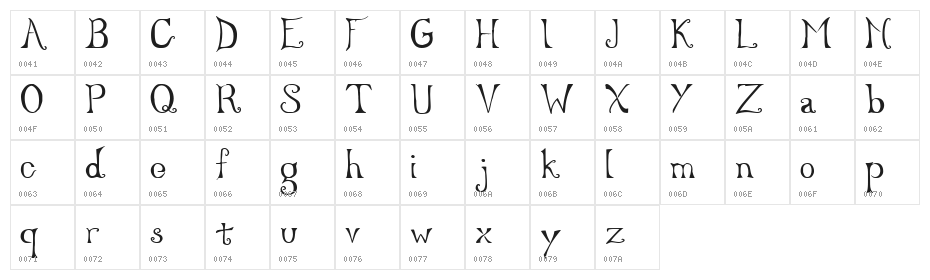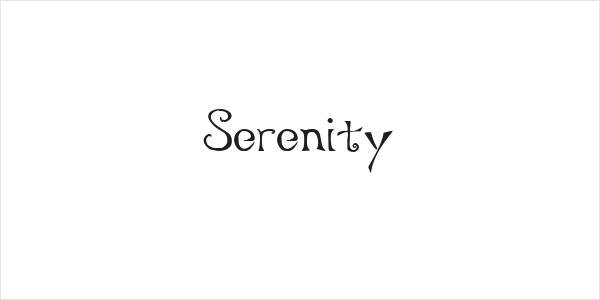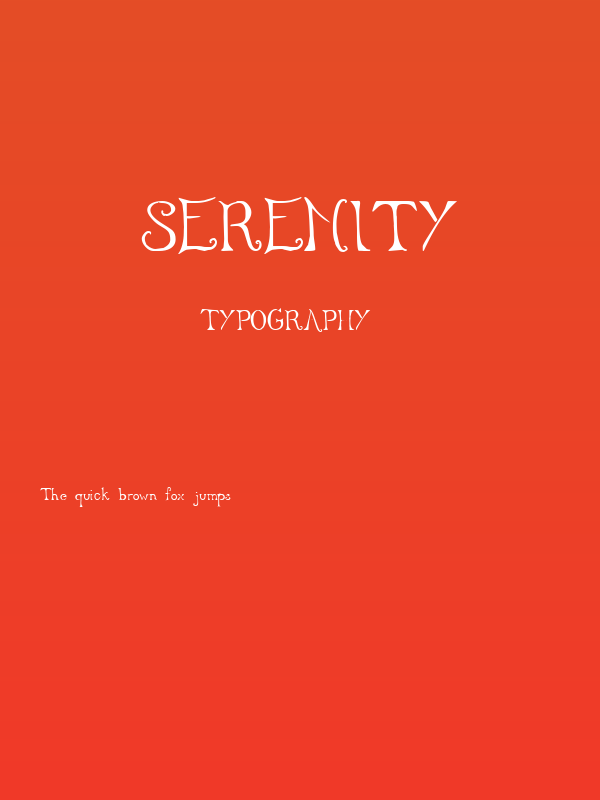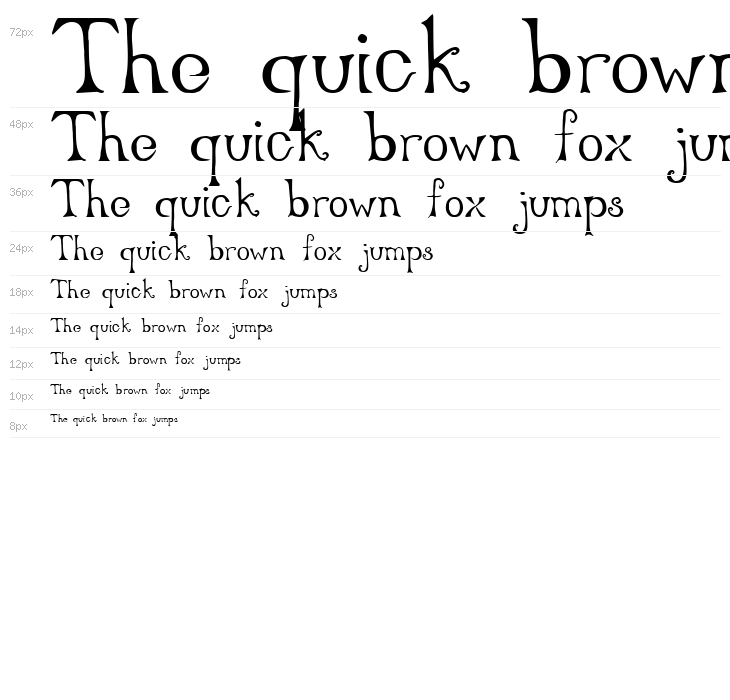
Serenity Font
This font features a whimsical and playful design with a decorative flair. The uppercase letters have a unique, artistic quality with varying stroke widths and subtle curls, giving them a hand-drawn appearance. The lowercase letters maintain this playful style, with some characters featuring exaggerated loops and swirls. The overall look is both elegant and quirky, making it stand out in any design. The numbers and special characters follow the same decorative theme, ensuring consistency throughout the font. This font is perfect for projects that require a touch of creativity and individuality.
Use CaseHeadlines, Logos, Creative projects
Proposed ProjectsIdeal for invitations, greeting cards, children's books, and creative branding.